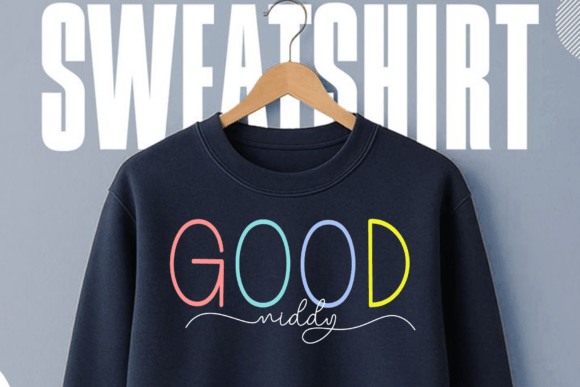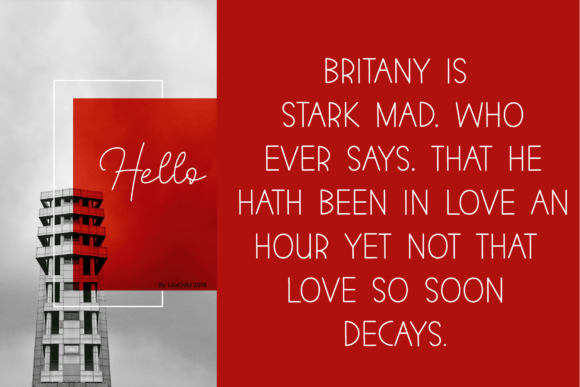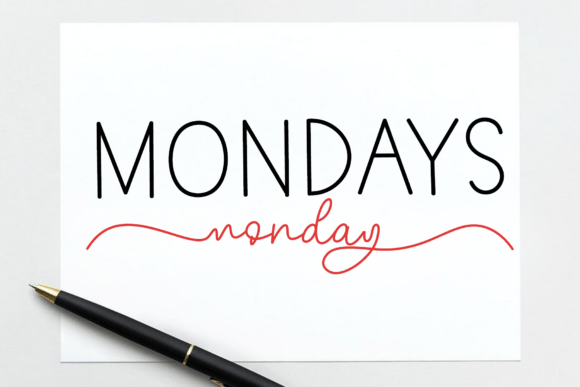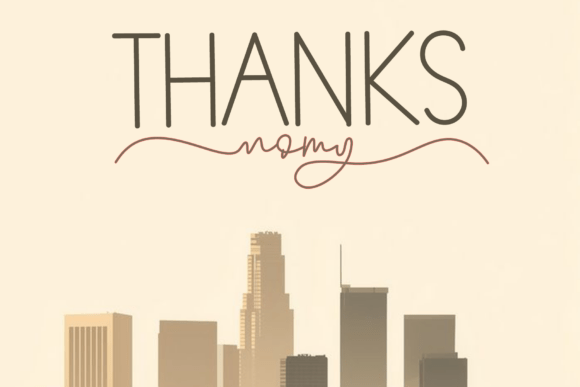
Introducing Happy Middy Font: Elevate Your Brand with Sophistication and Whimsy
In the world of typography, few fonts manage to strike a balance between sophistication and playfulness. Happy Middy Font is one such gem that effortlessly merges a calligraphic style with a warm, organic aesthetic, making it a premier choice for designers and crafters looking to elevate their brand’s visual identity.
The Unique Charm of Happy Middy
Happy Middy’s defining characteristic is its use of sweeping, looping ascenders that create a sense of customized, artisanal artistry. These elegant flourishes not only add a touch of whimsy but also convey a sense of handcrafted quality, making it an ideal choice for artisanal food branding, boutique product packaging, and upscale lifestyle marketing.
Whether you’re a designer looking to create a unique visual identity for a client or a crafter seeking to add a personal touch to your products, Happy Middy Font is sure to impress. Its sophisticated and rhythmic script style ensures that your brand stands out from the crowd, while its warm and organic feel creates an emotional connection with your audience.
Happy Middy Font is a versatile typeface that lends itself beautifully to a variety of creative projects. Here are some of the ideal use cases for this stunning font:
- Artisanal Food Branding: Add a touch of elegance and sophistication to your food brand’s packaging and marketing materials with Happy Middy’s looping ascenders and calligraphic style.
- Boutique Product Packaging: Create a unique and eye-catching visual identity for your boutique products with Happy Middy’s warm and organic aesthetic.
- Upscale Lifestyle Marketing: Elevate your lifestyle brand’s marketing materials with Happy Middy’s sophisticated and rhythmic script style, perfect for high-end clients and customers.
- Creative Editorial Titles: Add a touch of whimsy and creativity to your editorial titles with Happy Middy’s elegant flourishes and customized feel.
Why Choose Happy Middy Font?
With so many fonts available, why choose Happy Middy Font for your next project? Here are just a few reasons why this font stands out:
- Unique and Memorable: Happy Middy Font’s sweeping ascenders and looping flourishes create a unique and memorable visual identity that sets your brand apart.
- Versatile: This font is perfect for a variety of creative projects, from artisanal food branding to upscale lifestyle marketing.
- Elegant and Sophisticated: Happy Middy Font’s calligraphic style and rhythmic script ensure that your brand looks elegant and sophisticated, perfect for high-end clients and customers.
- Warm and Organic: This font’s warm and organic aesthetic creates an emotional connection with your audience, making it perfect for brands that want to convey a sense of handcrafted quality.
Get Creative with Happy Middy Font